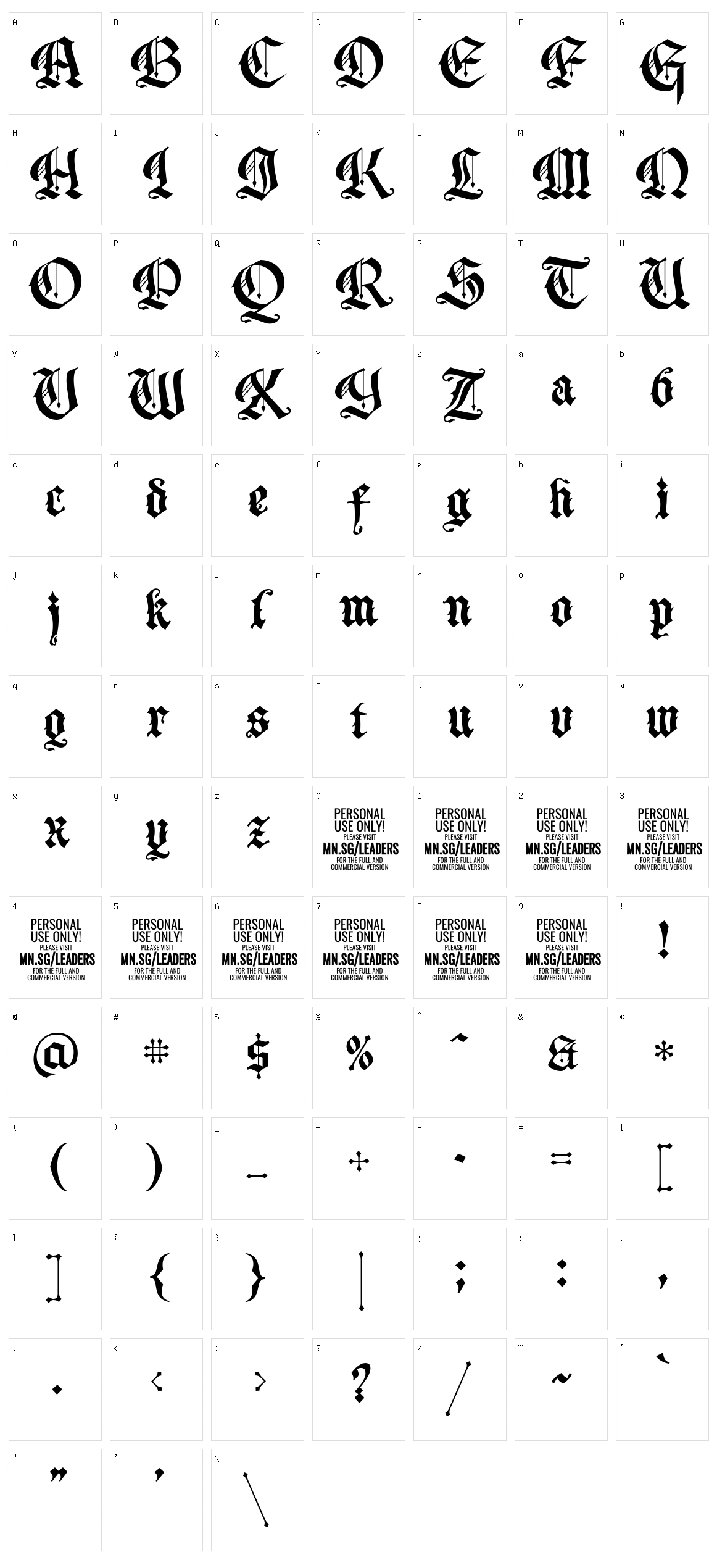
Leaders
Designed by: Mans Greback
Category: Medieval & Gothic
Leaders is a decorative blackletter typeface.
Created by Måns Grebäck during 2020, this medieval style lettering can be used for modern contexts that require a touch of flourishing, as well as any middle age art or festive occation.
OpenType functions such as ligatures and alternates are present in the typeface.
It contains numbers and all symbols and punctuation you'll ever need.
The font also has support for European, Latin-based languages.